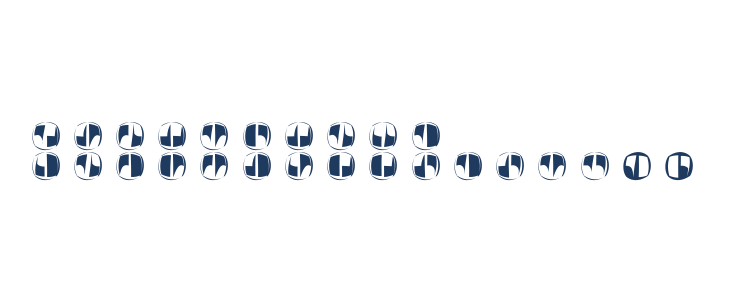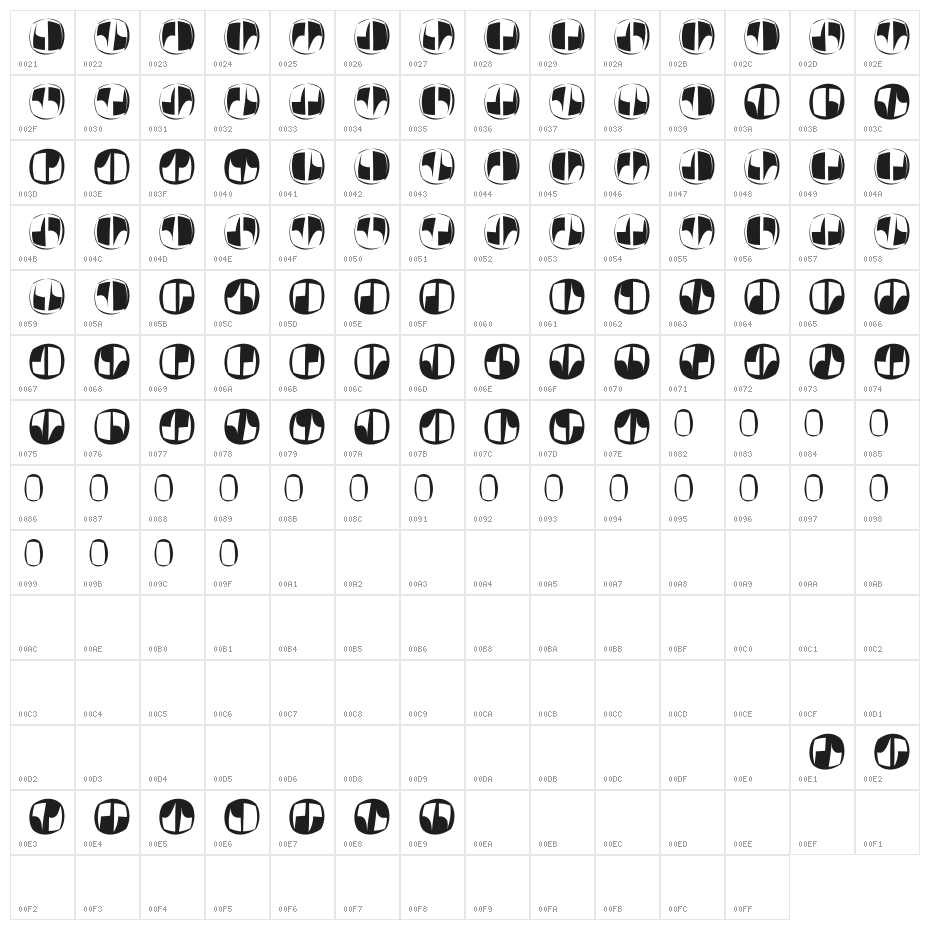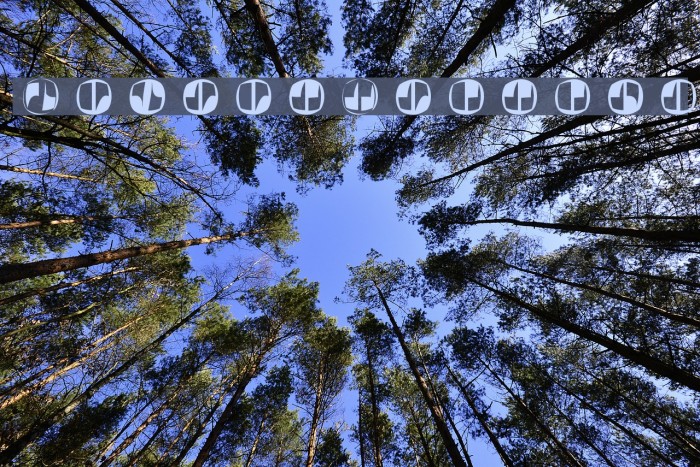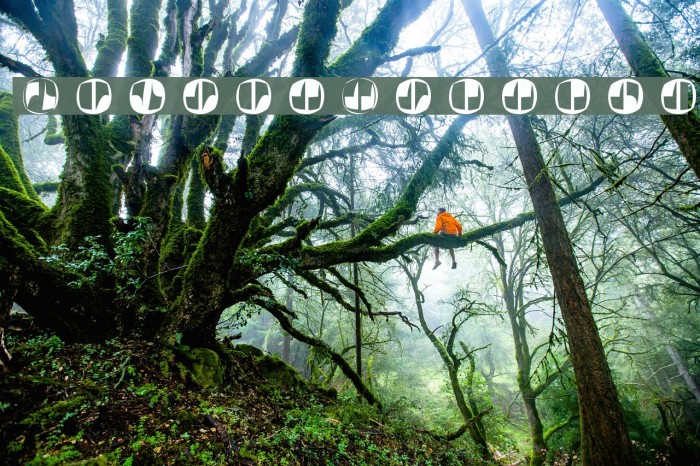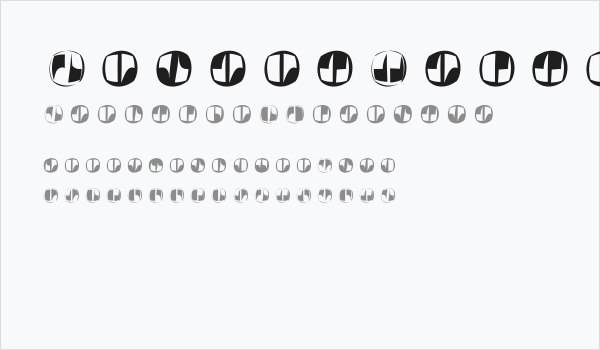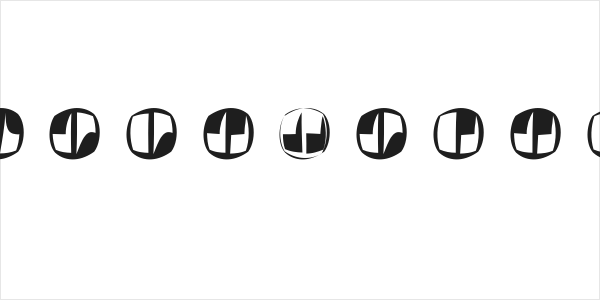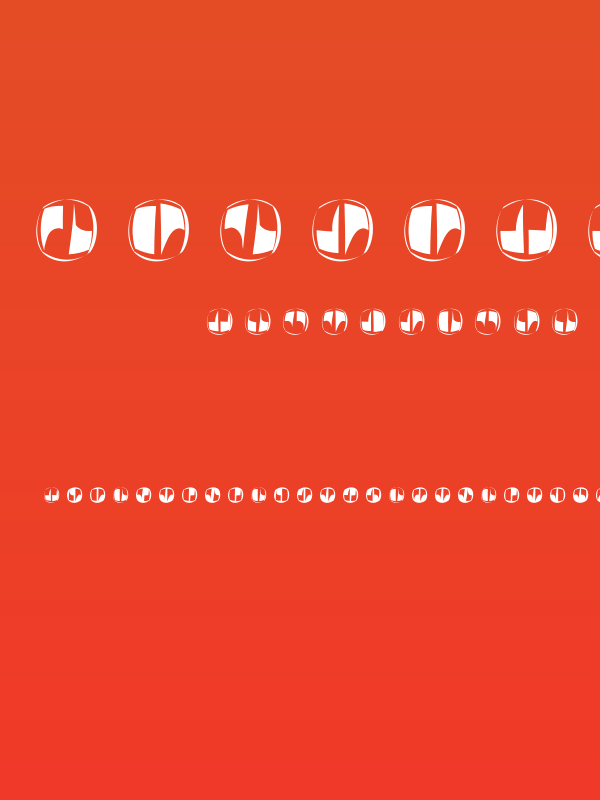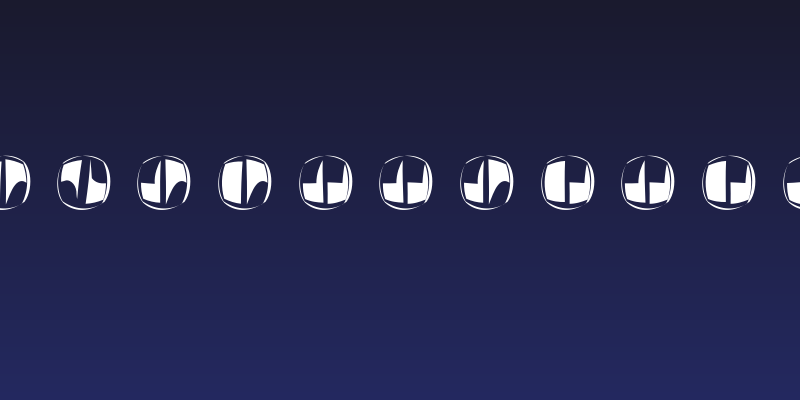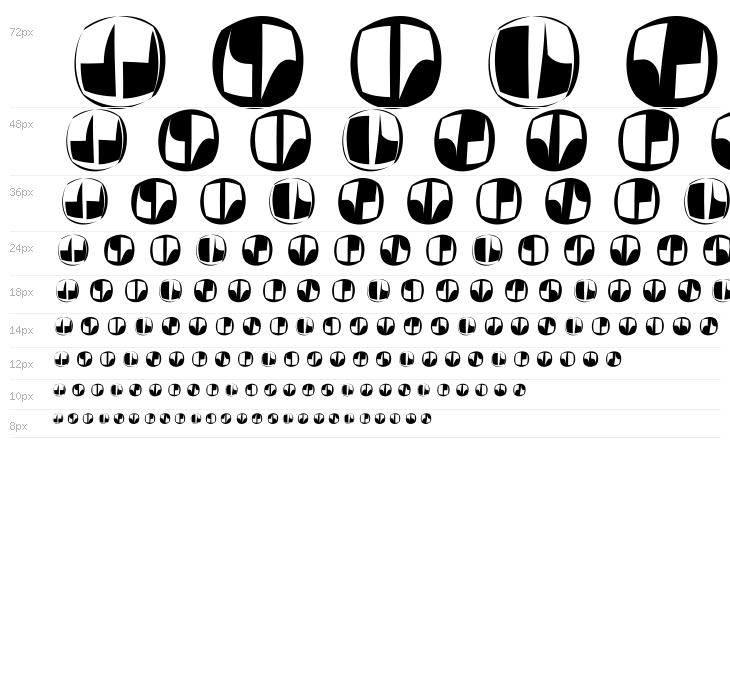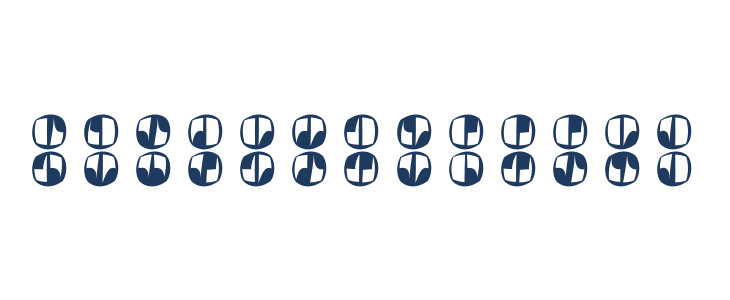
SecretWriting Font
SecretWriting Description
This font features a unique design where each character is enclosed within a circular shape, creating a distinct and modern appearance. The characters are stylized with a high contrast between thick and thin strokes, giving them a bold and striking look. The circular enclosures add a decorative element, making the font suitable for creative and artistic projects. The overall style is modern and abstract, with a playful yet sophisticated vibe. The characters are evenly spaced within their circles, ensuring readability while maintaining the artistic integrity of the design.
| Overall Style | Modern, Decorative |
| Use Case | Logos, Headlines, Posters |
| Proposed Projects | Ideal for logos, branding, album covers, and creative posters where a unique and modern aesthetic is desired. |